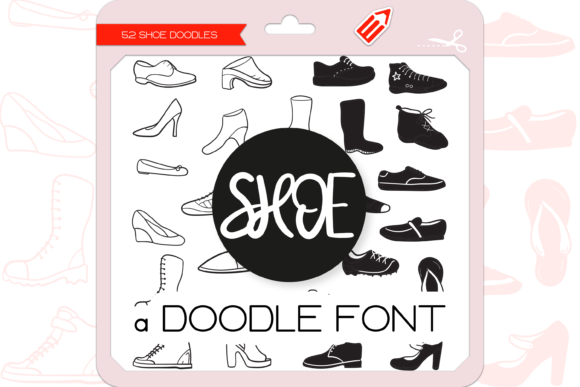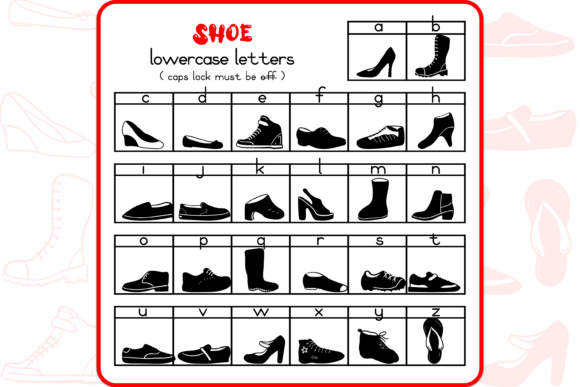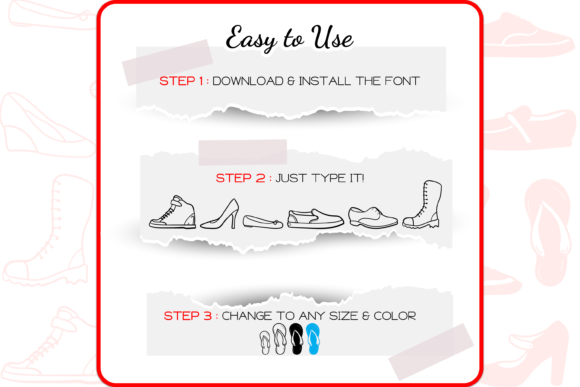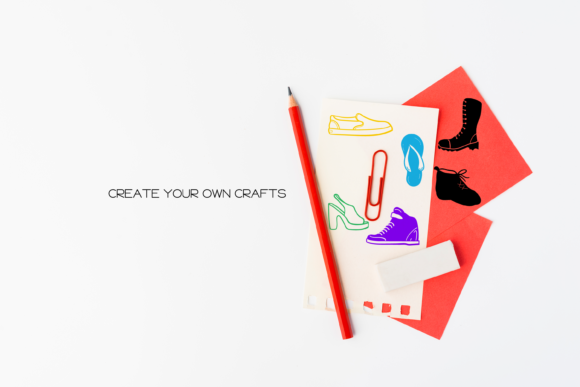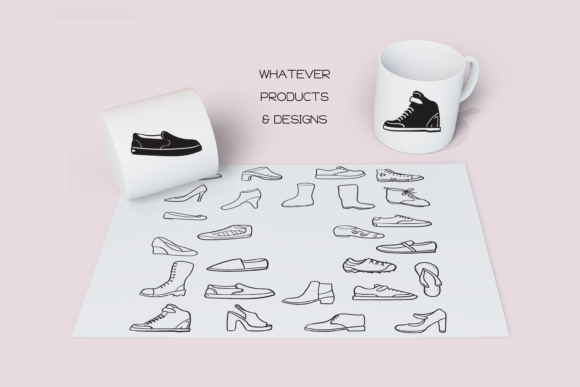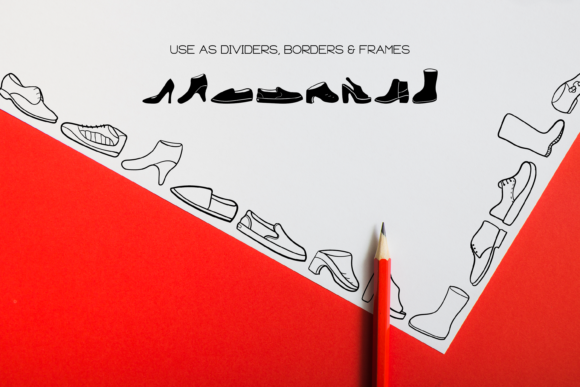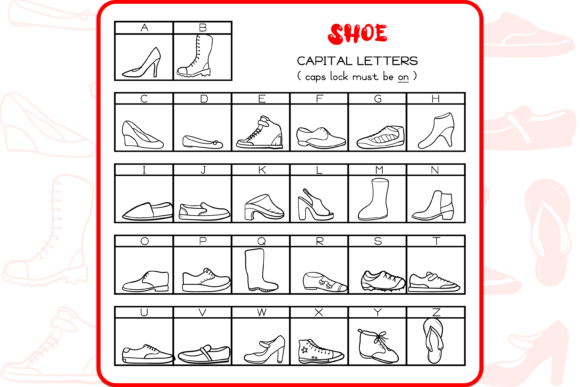
The Shoe Font
About The Shoe Font
Absolutely! “The Shoe” is a unique and cute dingbats font that can add a delightful touch to your creative ideas. With its collection of 52 hand-drawn shoe-themed doodles, this font offers a charming array of footwear-related elements.
“The Shoe” font is perfect for projects related to fashion, shoes, accessories, or any theme associated with style and personal expression. Each doodle in the font represents different types of shoes, including heels, flats, boots, sneakers, and more. These doodles can serve as decorative accents, icons, or even storytelling elements in your designs.
By incorporating “The Shoe” font into your creative projects, you can infuse them with a sense of whimsy, fashion, and personality. The hand-drawn nature of the doodles adds a unique and artistic flair, making your artworks stand out and capture attention.
Consider using “The Shoe” font in various ways. You can use the doodles individually to embellish fashion-related invitations, greeting cards, or promotional materials. They can also be combined to create patterns, borders, or custom illustrations that showcase your love for shoes and style.
“The Shoe” font can also be a fantastic addition to your digital designs, such as social media graphics, blog headers, or website elements. The cute and unique shoe doodles can add a touch of playfulness and creativity to your online presence, especially if you’re in the fashion or footwear industry.
Feel free to experiment with different colors, sizes, and placements when using “The Shoe” font. You can mix and match the doodles with other fonts or graphic elements to create visually appealing compositions that reflect your personal style and brand identity.
In conclusion, “The Shoe” is a unique and cute dingbats font that offers 52 hand-drawn shoe-themed doodles to enhance your creative ideas. By incorporating these charming footwear elements into your designs, you can make your artworks look lovely and showcase your passion for fashion and style. Whether you’re working on fashion-related projects, creating invitations, or adding a playful touch to your digital designs, this font is a valuable asset to your creative toolkit.